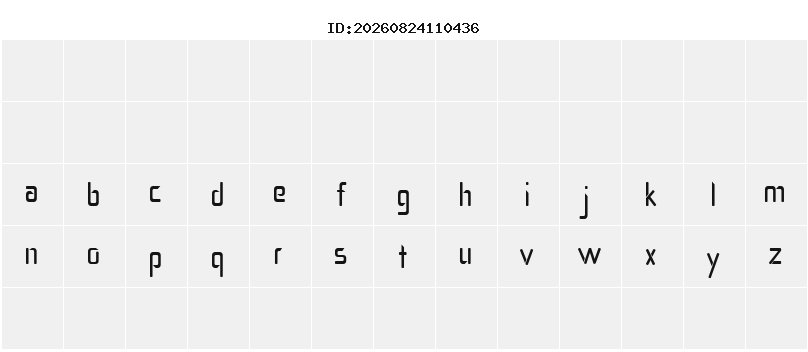
Salient Preview
• Font Name: Salient
• Designer: Kristie Joy Feltner
• Manufacturer: Kristie Joy Feltner
About Salient.ttf
Salient.ttf is a modern, elegant sans-serif font designed for ultimate readability and visual harmony. Perfect for branding, headlines, web design, and print materials.